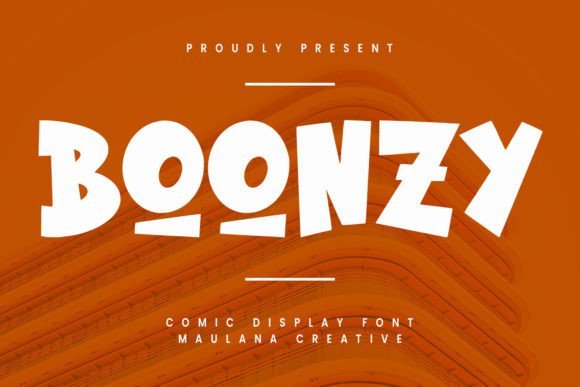
The Birth of a Creative Masterpiece: Boonzy Font
Have you ever stared at a blank canvas, waiting for inspiration to strike? Maybe you’ve been doodling ideas in a notebook or sketching out concepts on a sticky note. Whatever your creative process, one thing is certain: the right font can make all the difference. That’s where Boonzy Font comes in – a playful, heavy-stroke display font designed to bring your most vibrant ideas to life.
With its fun character and clever ligatures, Boonzy Font is the perfect tool for designers looking to add some personality to their projects. Whether you’re working on a logo, social media campaign, or book title, this versatile font supports over 100 languages, making it an invaluable asset for creatives around the world.
Boonzy Font Key Features
- Font Family: Boonzy Font is a unique sans-serif typeface designed to convey modernity and sophistication.
- Character Count: Boonzy Font contains a comprehensive set of characters, including uppercase and lowercase letters, numbers, and punctuation marks.
- Unique Characteristics: Boonzy Font features a distinctive x-height and a subtle rounded edge, giving it a friendly and approachable feel.
Boonzy Font Review
Overall, I have mixed feelings about the Boonzy Font. It’s a beautiful font with some lovely features, but it also has some limitations that prevent it from being perfect.
- The Boonzy Font has a unique and stylish aesthetic that’s perfect for creative projects.
- The font is highly customizable, allowing users to adjust the weight, spacing, and other parameters to suit their needs.
- The font is highly legible, even at smaller font sizes.
- The font can be quite heavy, which may not be suitable for projects where a more minimalist look is desired.
- The font lacks support for certain languages, which may be a limitation for international projects.
Overall, the Boonzy Font is a solid choice for designers who are looking for a unique and stylish font. However, it may not be the best option for every project, especially those with limited budgets or language requirements. With a bit of customization and careful consideration, the Boonzy Font can be a great addition to any design portfolio.
Tips for Getting the Most Out of Boonzy Font
Use Boonzy Font for creating eye-catching headings and titles. This font is perfect for adding a touch of elegance and sophistication to your designs.
Use Boonzy Font for:
– Headings and titles
– Creative and artistic projects
– Designing invitations and greeting cards